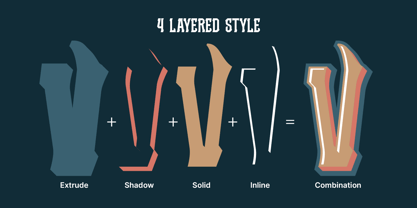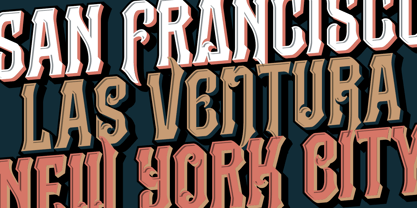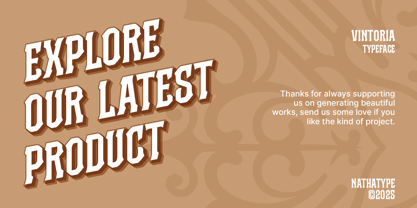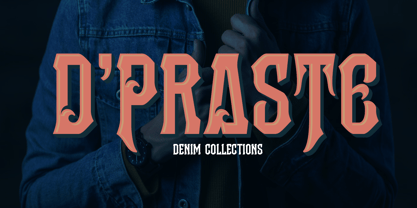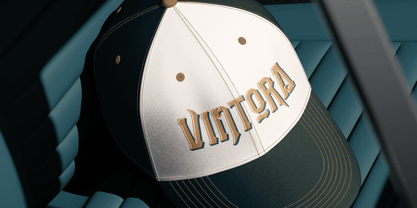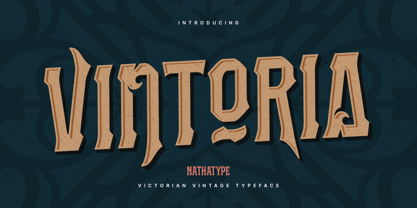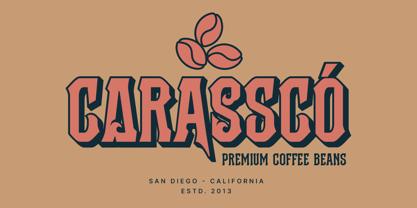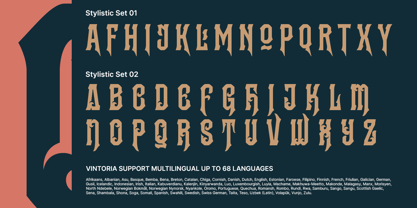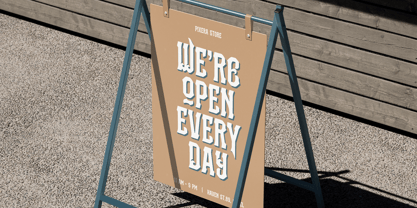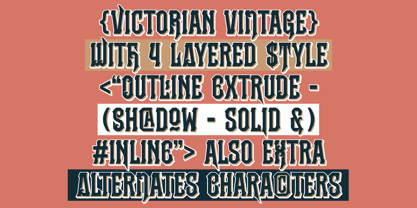
Vintoria
von Nathatype
Vintoria is a vintage-inspired display font designed in bold, uppercases letters with a refined weight that strikes the perfect balance between strength and elegance. Its layered style brings depth and versatility, allowing you to create dynamic typographic effects that capture a true retro spirit. Vintoria combines classic vintage charm with a clean, adaptable design that stands out in any setting. In addition, enjoy the features here.
Features:
• Stylistic Sets
• Multilingual Supports
• Numerals and Punctuations